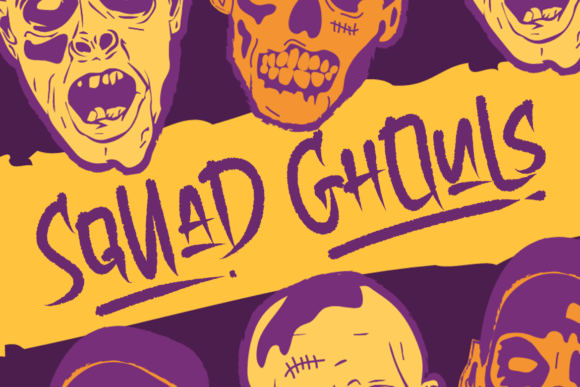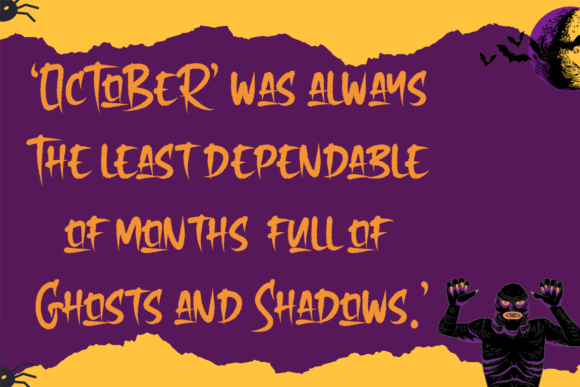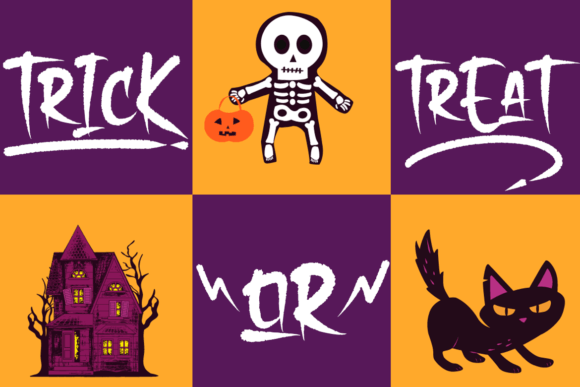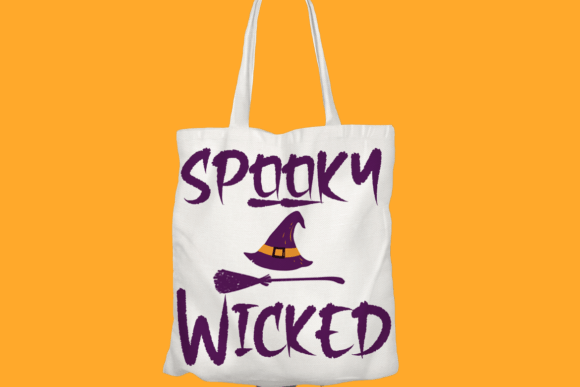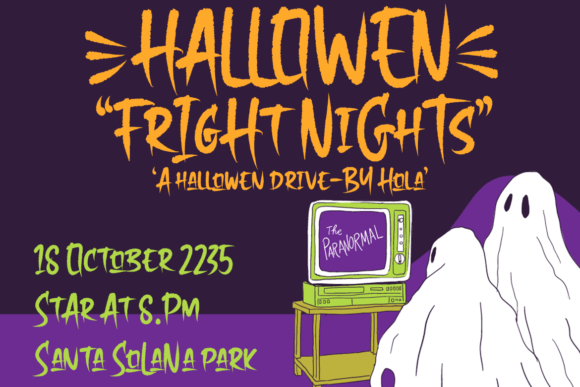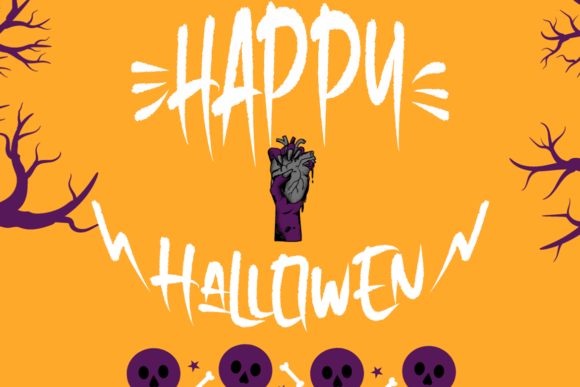
The Elusive Font: My Encounter with Ghoster
I still remember the project like it was yesterday. I was working on a magazine layout, and my client had a very specific vision in mind. They wanted a font that was playful, yet sophisticated; a font that would make their content stand out without looking too over-the-top. I scoured the internet, tried out countless fonts, but nothing seemed to fit the bill. That’s when I stumbled upon Ghoster Font. It was like a breath of fresh air – fun, quirky, and perfect for the job. In this article, I’ll share my experience with Ghoster Font, its features, and how you can make the most out of it in your designs.
An Honest Review of Ghoster Font
- ✨ Unique and Playful Design: Ghoster Font is a display font that stands out from the crowd. Its quirky design makes it perfect for magazines, crafts, and any project that needs a bit of personality.
- ✅ Easy to Read: Despite its playful nature, Ghoster Font is surprisingly easy to read, even in larger blocks of text.
- 💡 Versatile: This font can be used for a wide range of projects, from digital designs to print materials.
While Ghoster Font is an excellent choice for many projects, it’s not without its limitations. For instance:
- 🤔 Limited Use in Formal Contexts: Due to its playful nature, Ghoster Font might not be the best choice for formal documents or professional publications.
- ⚠️ Legibility at Small Sizes: Like many display fonts, Ghoster Font can become difficult to read at very small sizes.
The Backstory Behind Ghoster Font
Ghoster Font was designed with creativity in mind. Its creator wanted to craft a font that would inspire designers to push the boundaries of typography. With its unique and playful design, Ghoster Font has become a favorite among designers and crafters alike.
Q: Is Ghoster Font suitable for body text?
A: While Ghoster Font is easy to read, it’s primarily designed as a display font. For longer blocks of text, a more traditional font might be more suitable.